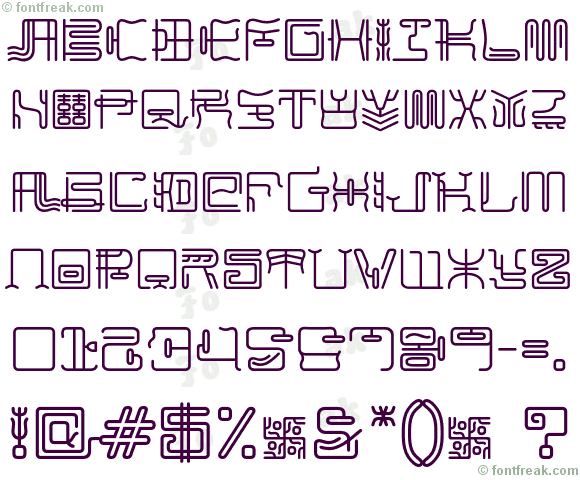
MaximageZhiLong
About MaximageZhiLong
MaximageZhiLong is a distinctive display font that combines modern aesthetics with artistic flair, making it a standout choice for various creative projects. This font features a unique geometric design characterized by its thin stroke weight and minimal contrast, providing a clean yet visually engaging appearance. The uniform spacing of the letters contributes to a harmonious flow, while subtle decorative elements add an intriguing touch without overwhelming the overall simplicity.
Ideal use cases for MaximageZhiLong include contemporary wedding invitations, where its stylish design can elevate the elegance of the event. It also works beautifully for movie posters, capturing attention with its striking visual identity. Restaurant menus can benefit from its modern look, enticing patrons with a sense of sophistication. Additionally, this font is perfect for branding projects, allowing small business owners to convey a unique personality in their logos and promotional materials. Content creators will find it appealing for social media graphics, where eye-catching visuals are essential for engagement.
Targeting graphic designers, small business owners, and content creators, MaximageZhiLong offers versatility and creativity in one package. The font's unique character allows it to stand out in a crowded marketplace, making it an excellent choice for anyone looking to make a memorable statement.